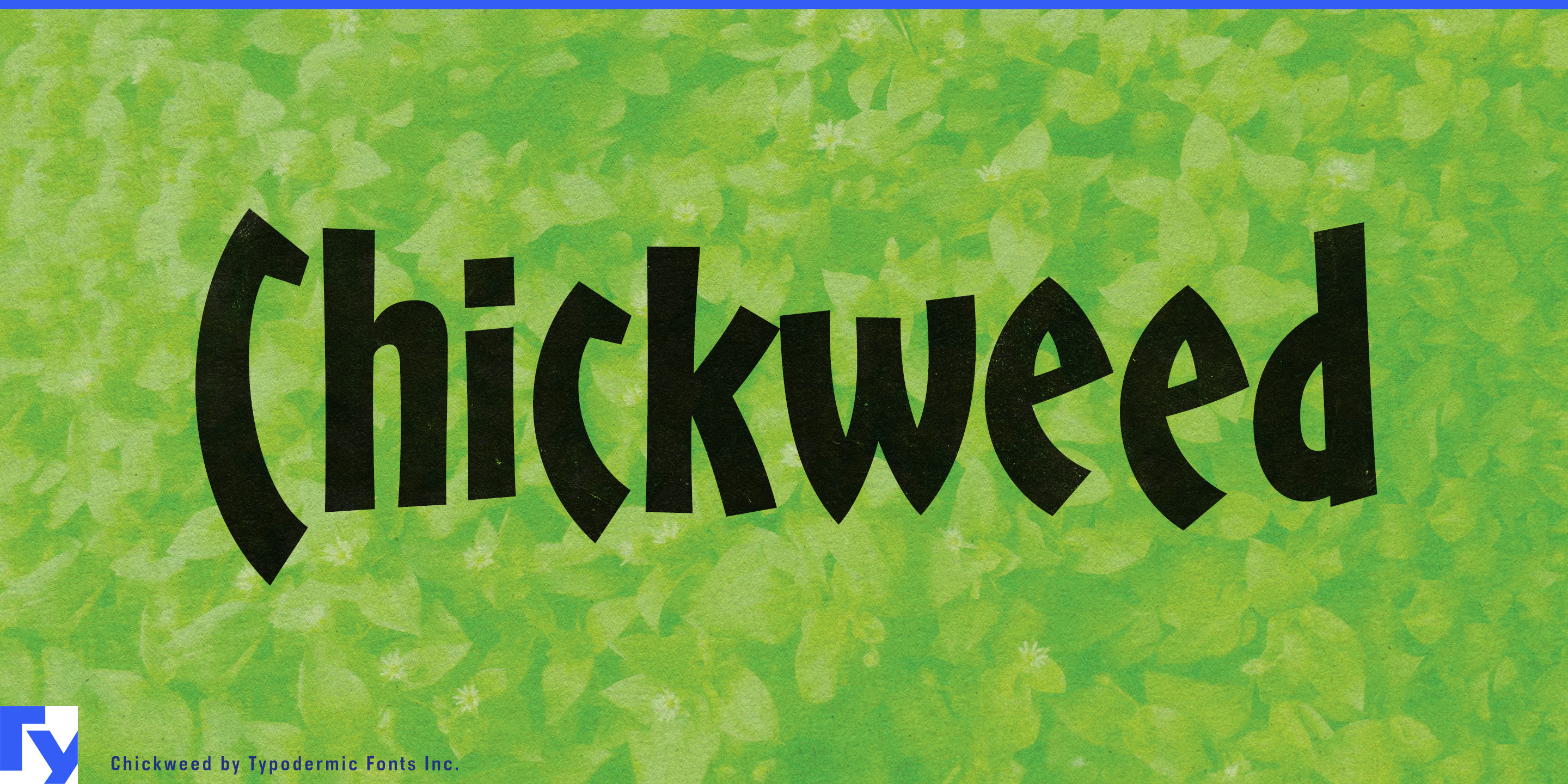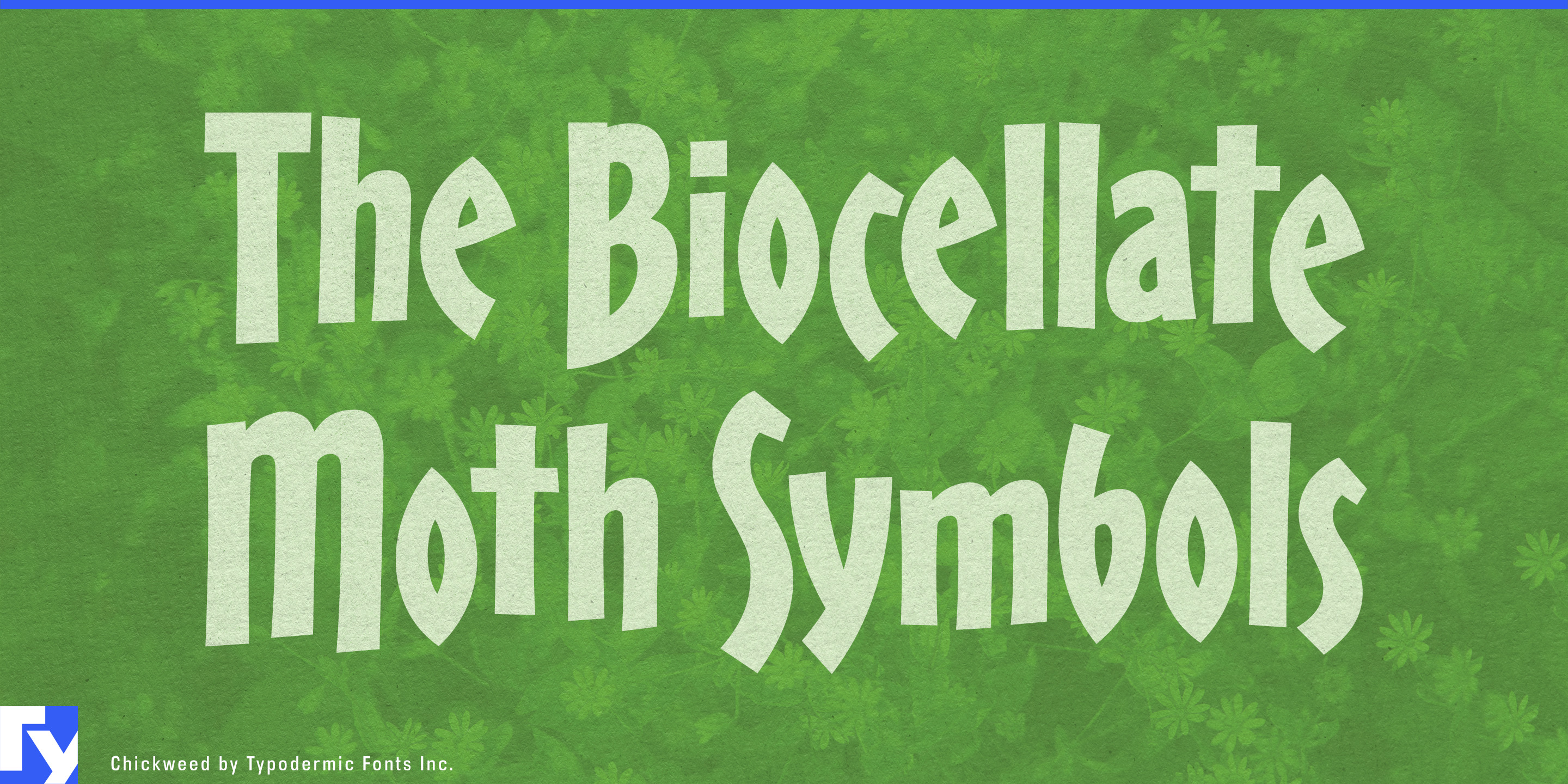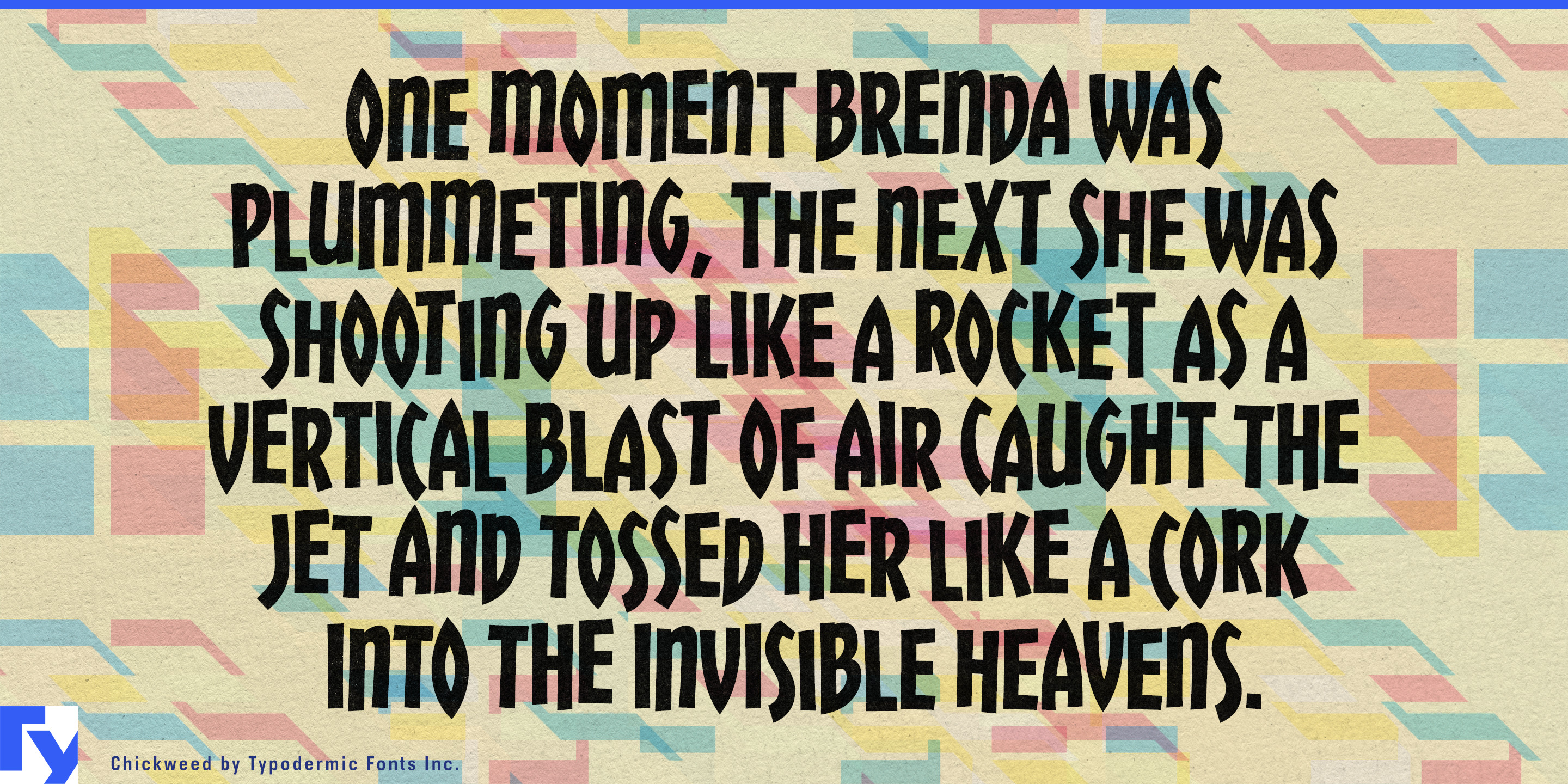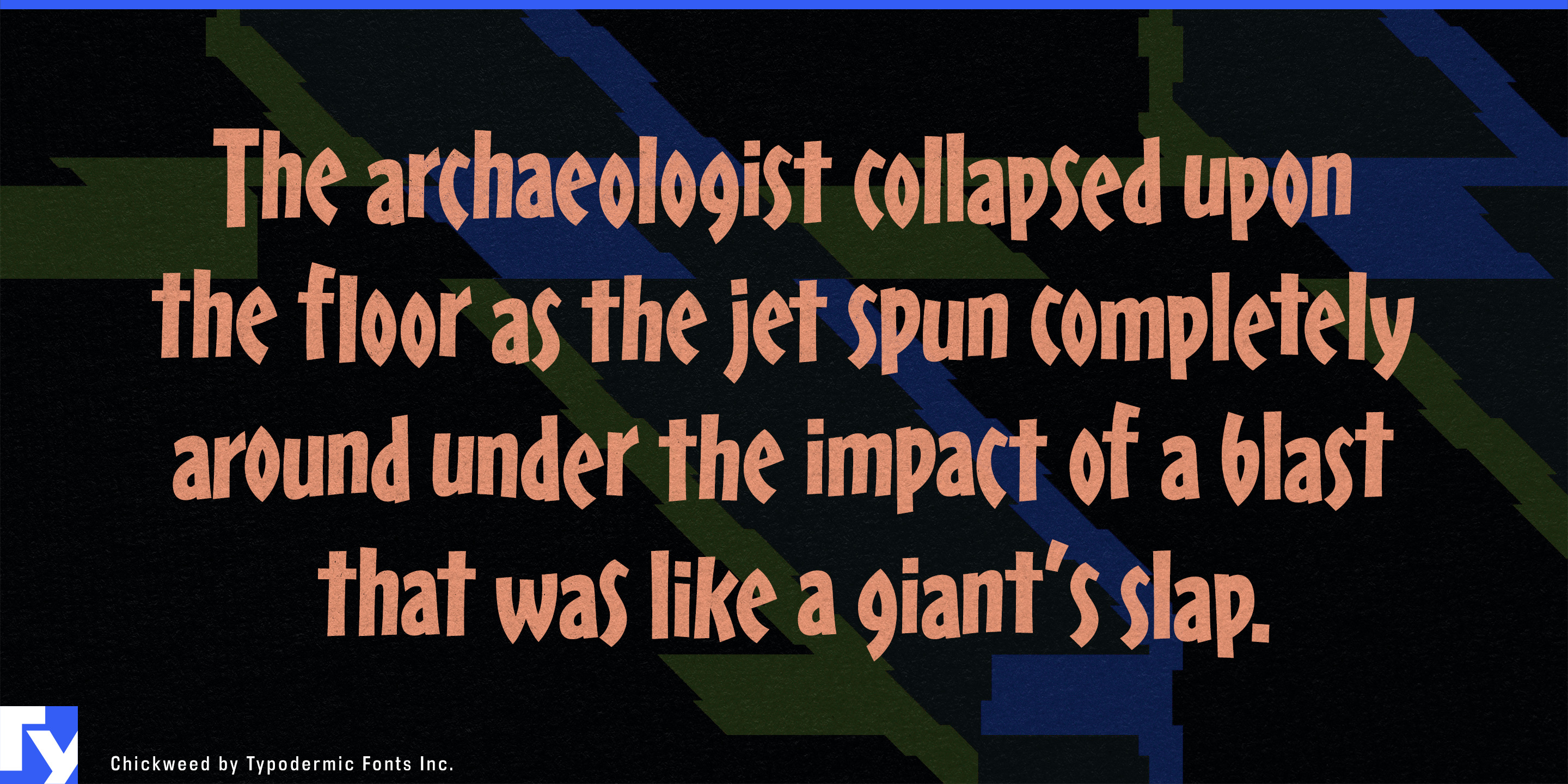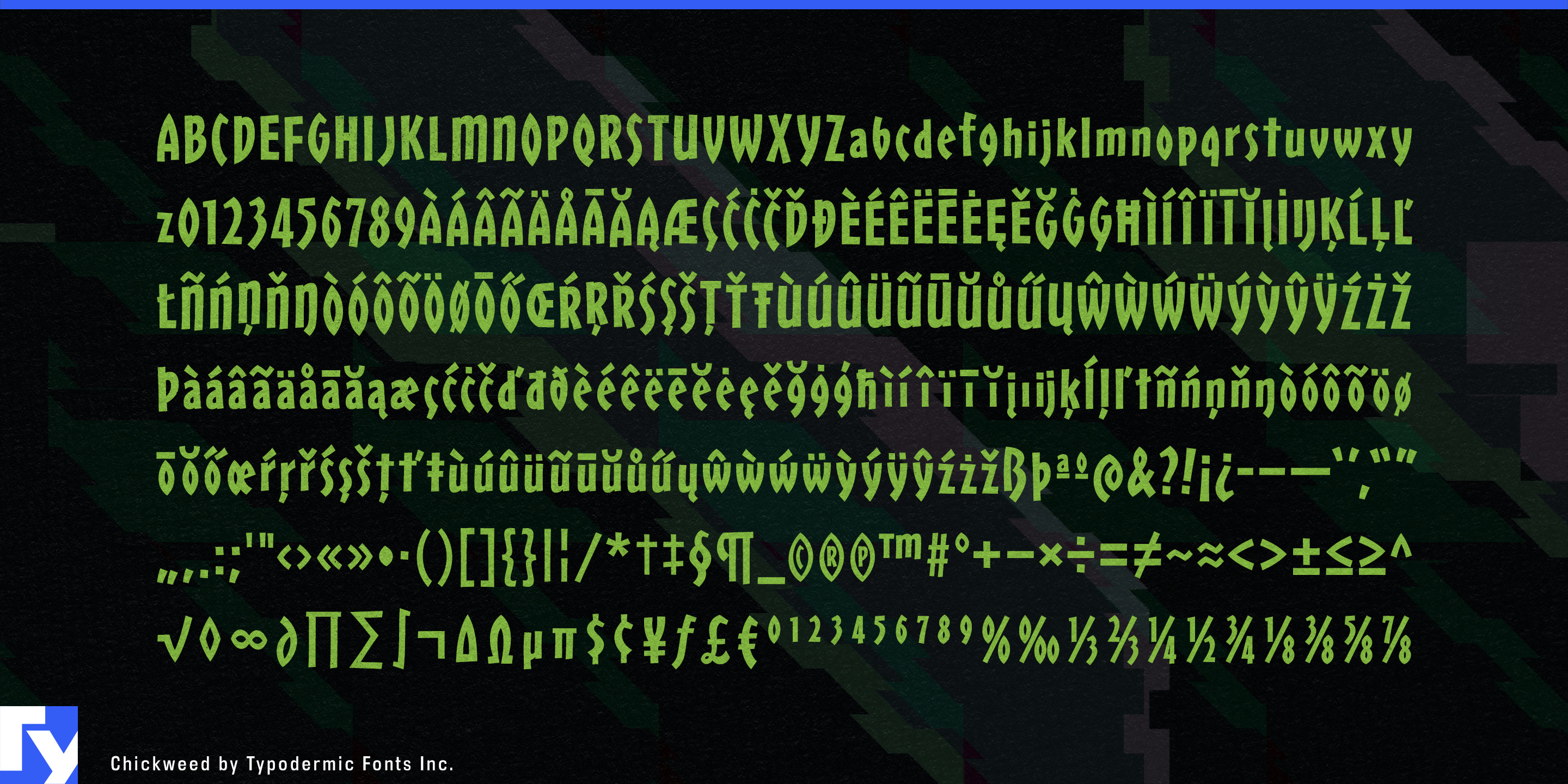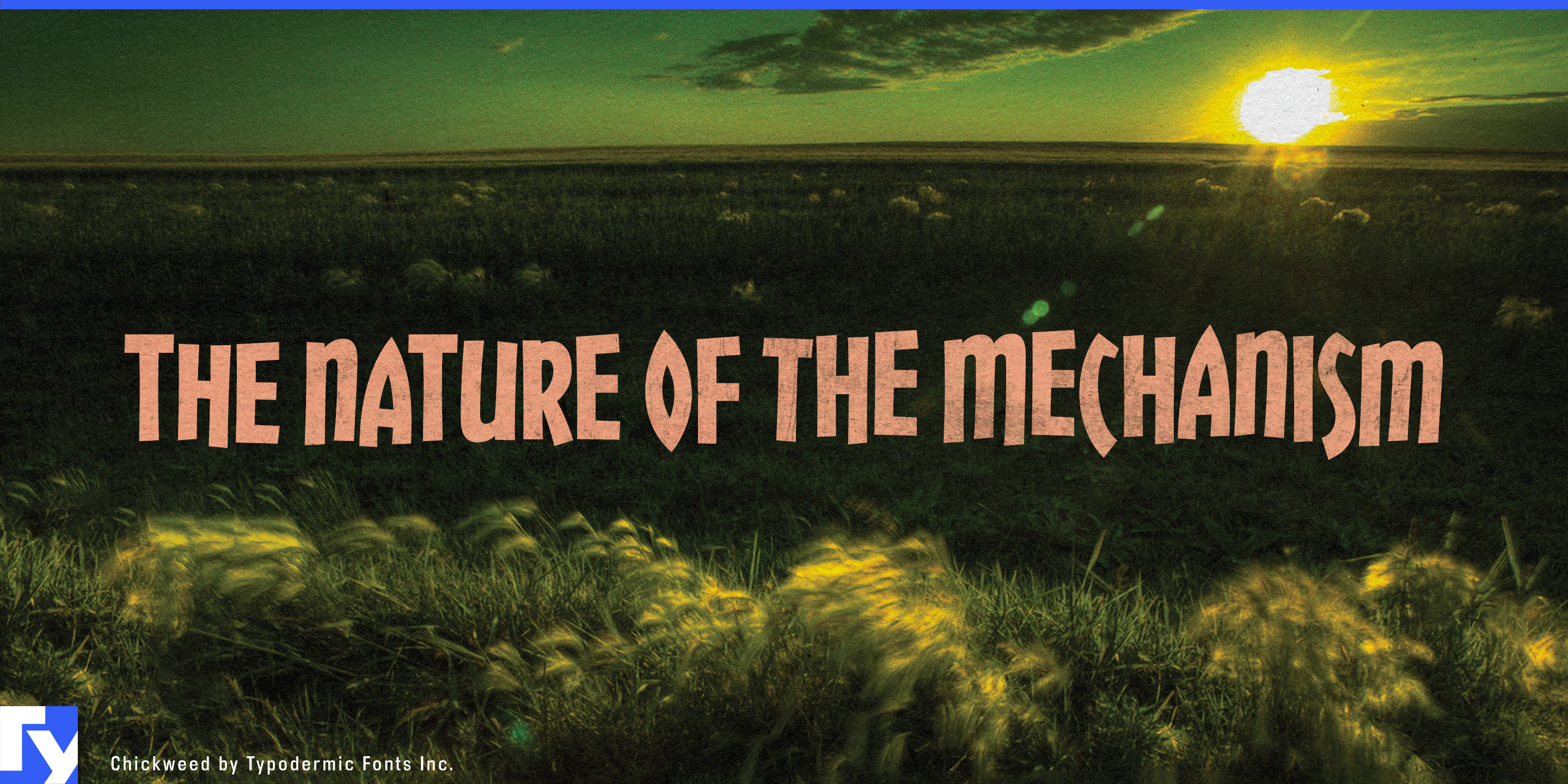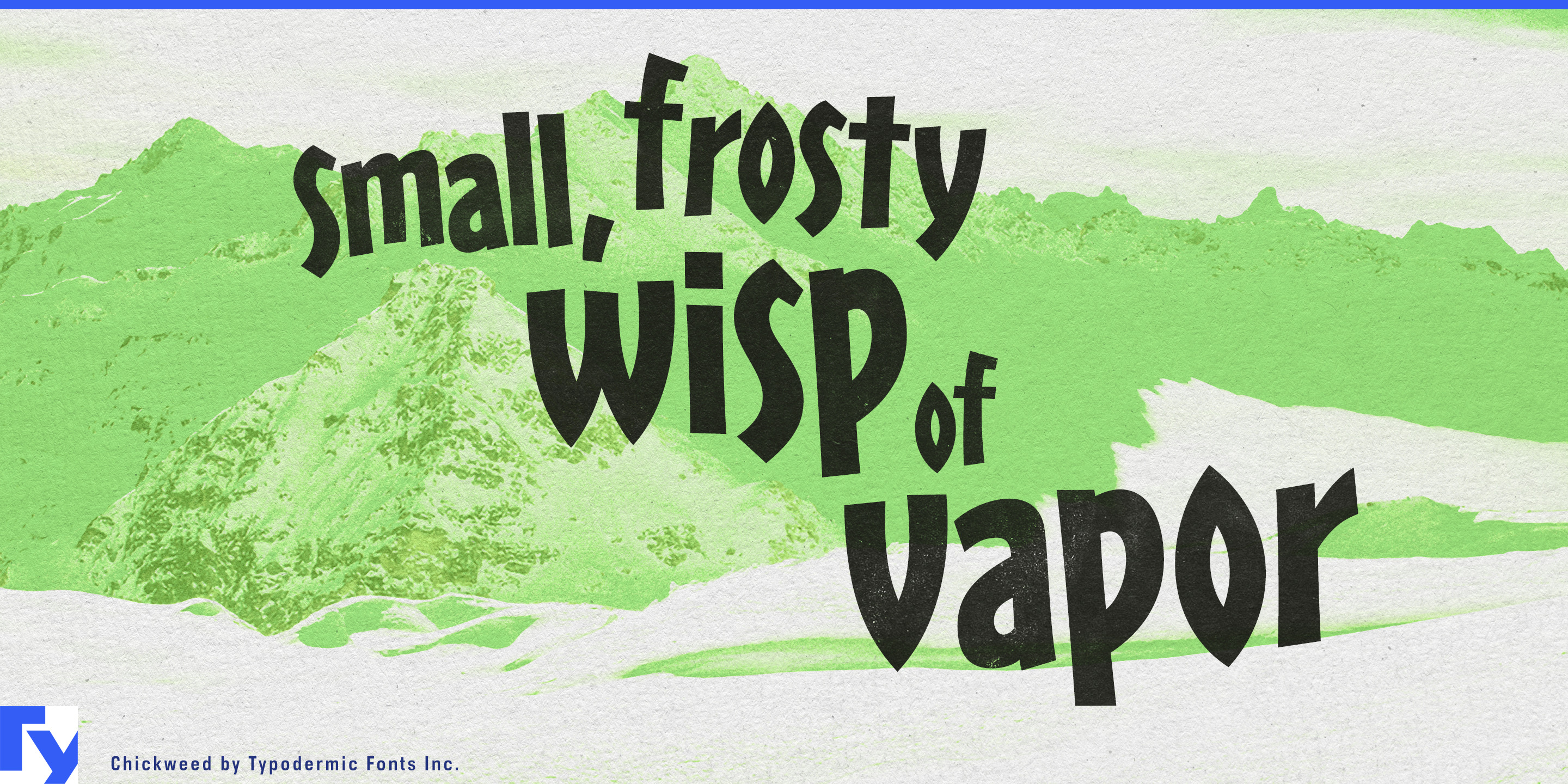
Chickweed
Chickweed is a condensed headline typeface that proves you don’t need sprawling letterforms to make a big impact. Its quirky curves, angled cuts, and distinctive sideways-eye ‘O’s let you pack words tightly without losing personality or readability. In fact, Chickweed thrives where space is at a premium—turning every centimeter into a burst of visual energy.
The alternates keep things lively, automatically swapping characters to create a natural, irregular rhythm. That subtle variation gives your headlines a hand-shaped, organic feel—perfect for designs that need warmth without sacrificing punch.
Think of Chickweed as your go-to for modern, space-conscious branding: bold vertical video titles, compact food packaging labels, eco-conscious product lines, indie game splash screens, or vibrant signage in tight spaces. Wherever you need a voice that’s playful yet assertive, Chickweed delivers—bringing charm, clarity, and a little bit of mischief to every word.